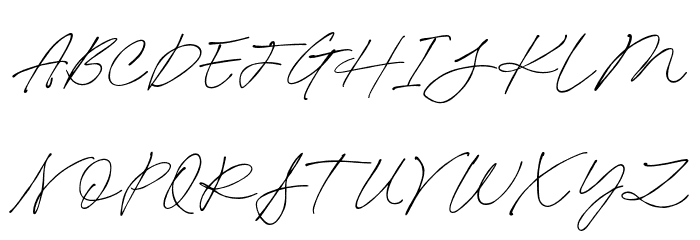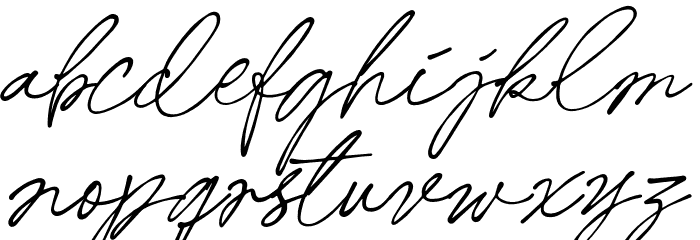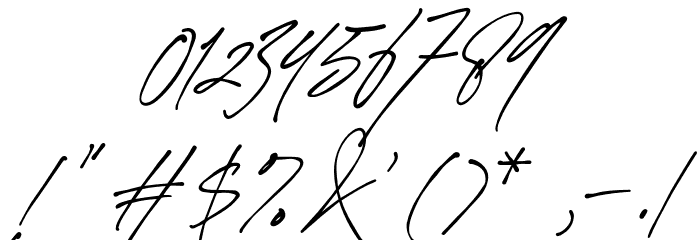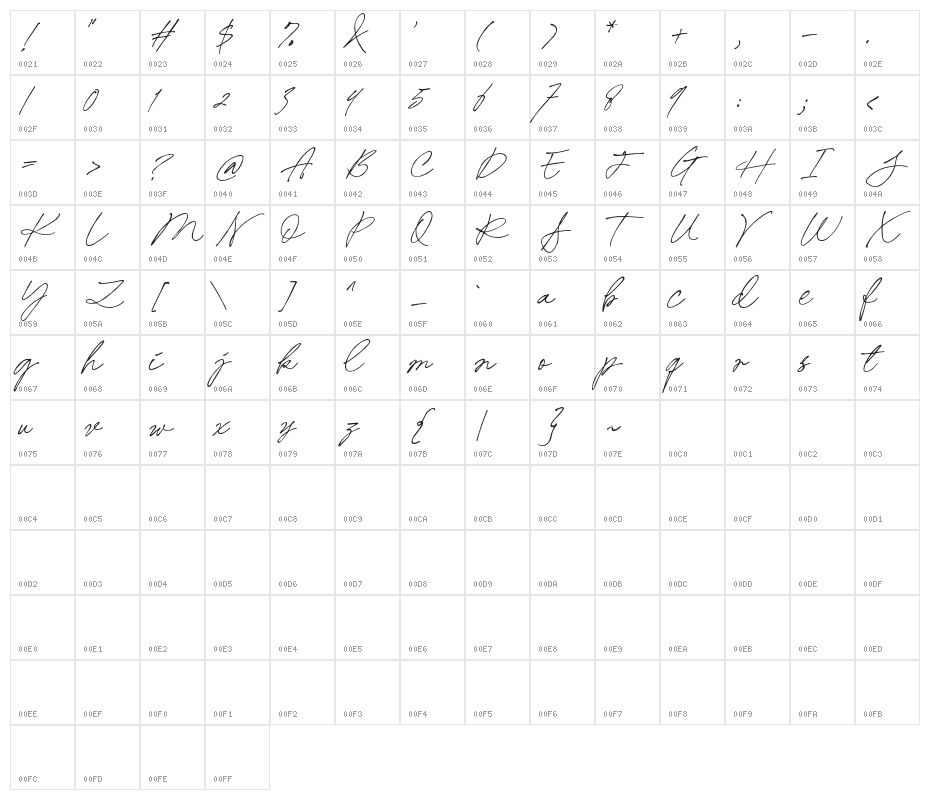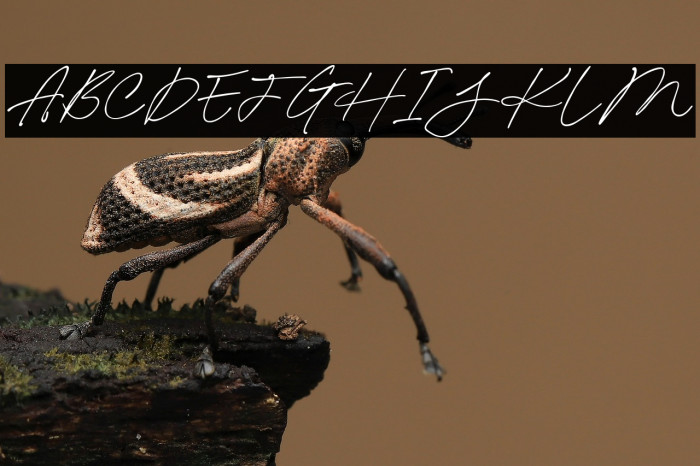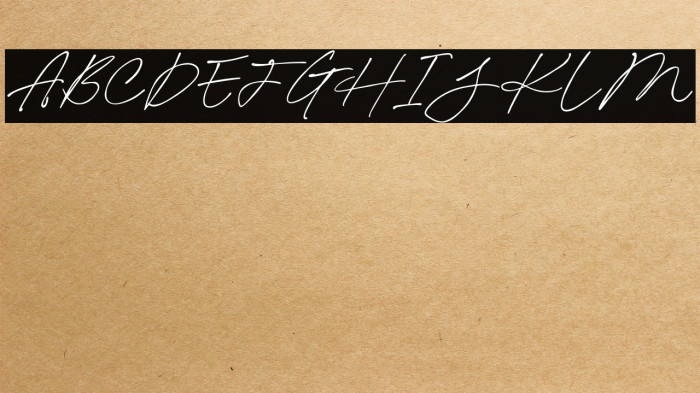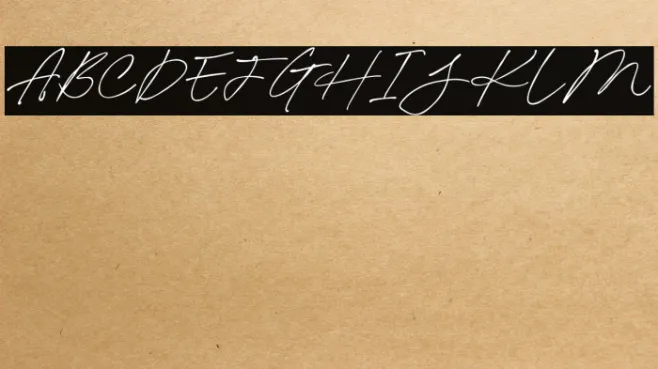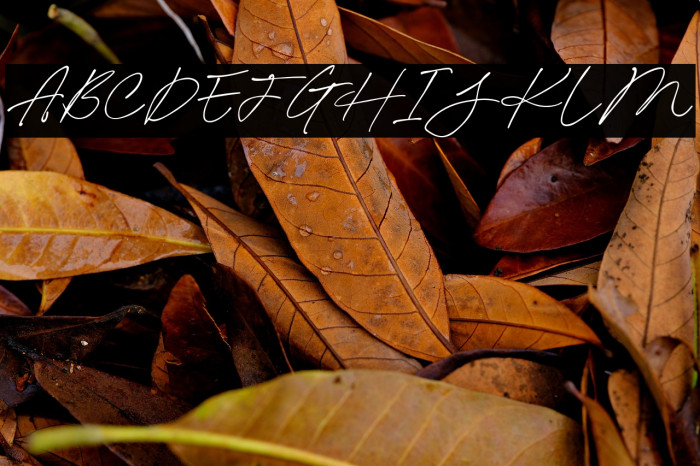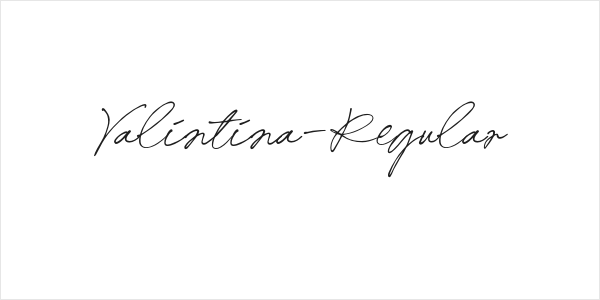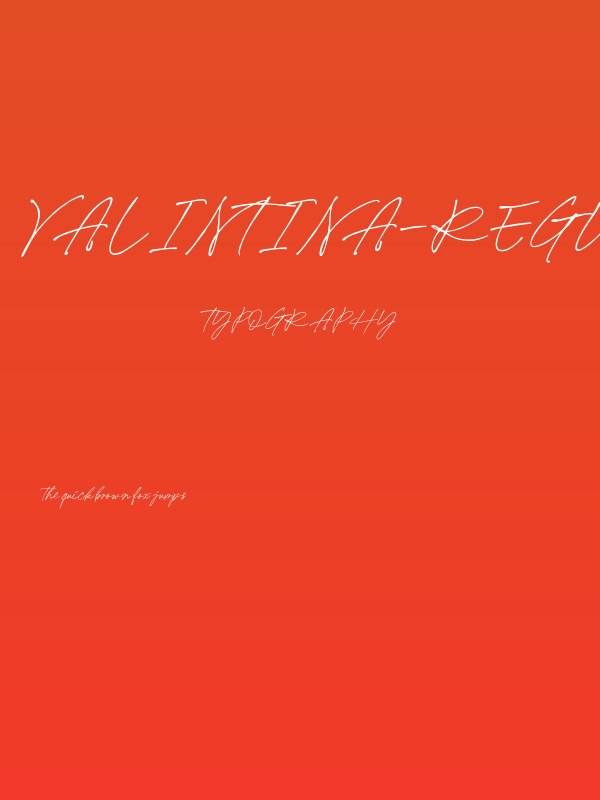
Valintina-Regular Font
A flowing, cursive script font with a handwritten appearance, featuring elegant and connected letterforms.
Elegant cursive script with a handwritten style.
- Font: Valintina-Regular
- Proposed Projects: Invitations, greeting cards, personal branding.
- Category: Script
- Character Spacing: Tight
- Use Case: Logos, Headlines, Decorative text.